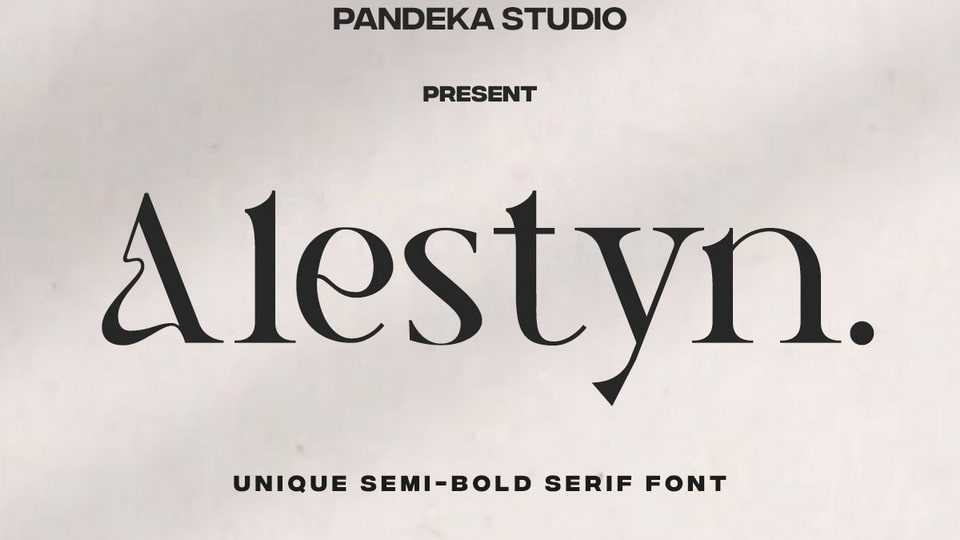
Download Alestyn font, a sophisticated serif typeface that effortlessly combines elegance with a contemporary flair. With its graceful lines and modern aesthetic.